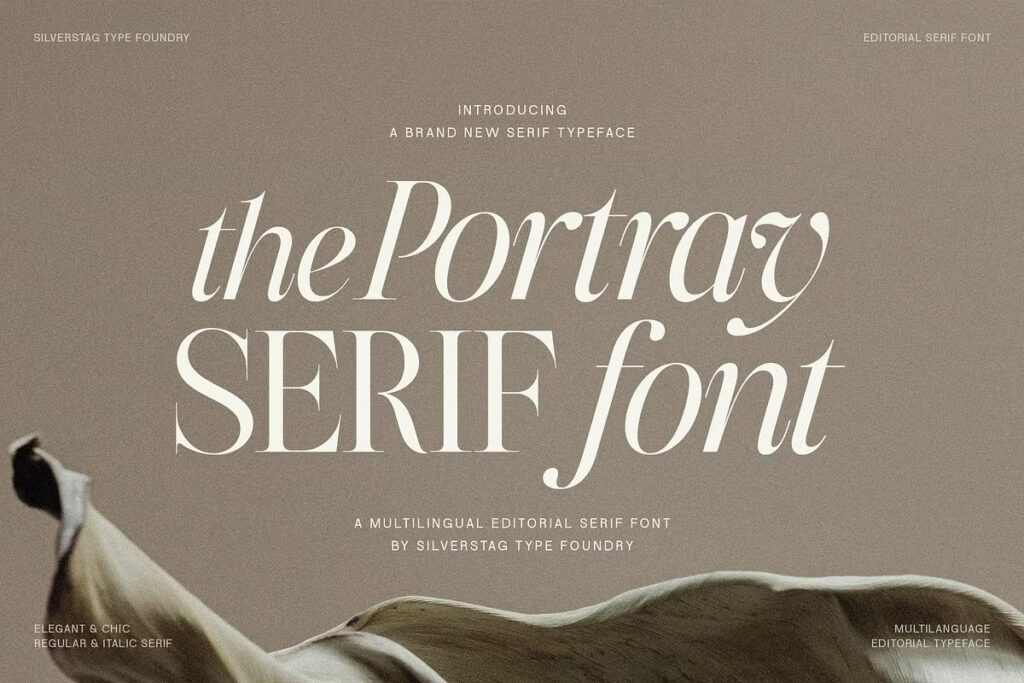
The Portray – Elegant Serif Typeface
Unveil Timeless Elegance with The Portray Serif Typeface
Elevate your design projects with The Portray, an elegant serif typeface that masterfully combines classic charm with modern sophistication. Whether you’re designing editorial layouts, branding, or websites, The Portray’s high-contrast strokes and graceful curves will enhance any creation.
Key Features of The Portray
Effortless Elegance: Its clean lines and balanced proportions make it perfect for diverse applications.
Chic Ligatures: Curated ligatures add a unique touch, creating eye-catching letter combinations.
Advanced OpenType Features: Enjoy stylistic alternates and ligatures for full typographic control.
Multilingual Support: With compatibility for over 90 languages, your designs can reach a global audience.
True Italics: The carefully designed italics complement the regular characters, enhancing visual harmony.
Ideal Applications
The Portray is not just a typeface; it’s a design solution:
Editorial Design: Perfect for magazines, newspapers, and books, its readability ensures elegance in long-form text.
Branding & Logos: Craft a memorable identity that stands out with The Portray’s timeless appeal.
Web Design: The clean lines and high contrast guarantee optimal legibility across all screen sizes.
Packaging & Print: Infuse your product packaging and printed materials with refined luxury.
Invitations & Stationery: Make a lasting impression with its graceful presence on invitations and greeting cards.
Experience the difference of The Portray—where elegance meets versatility.